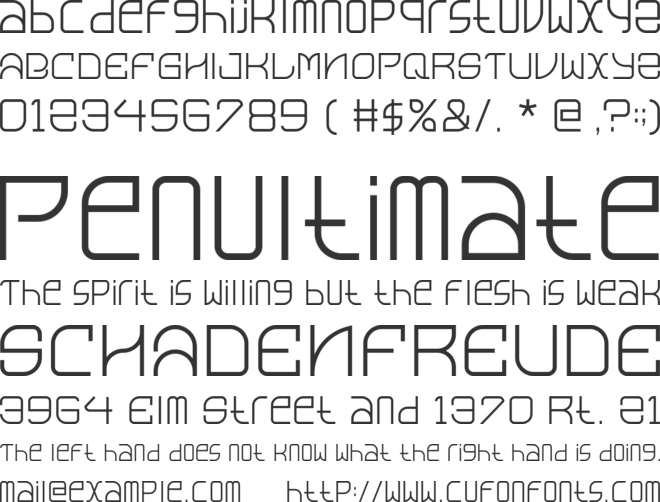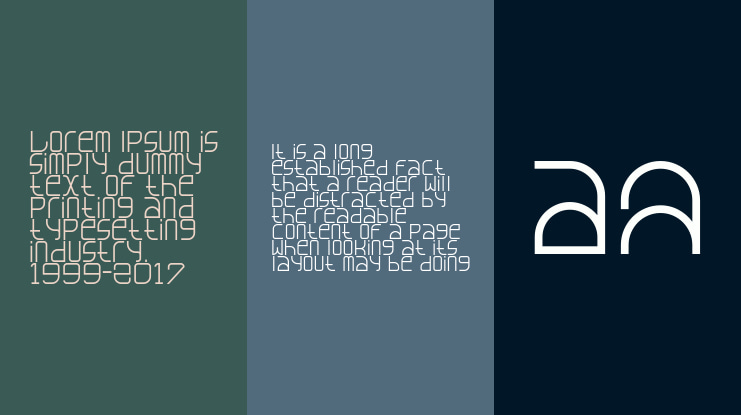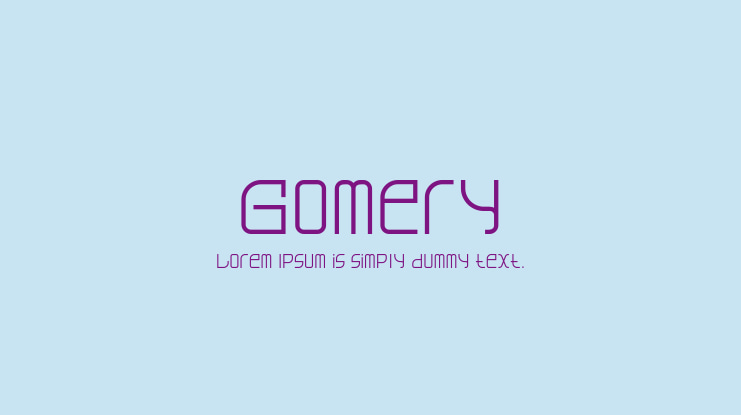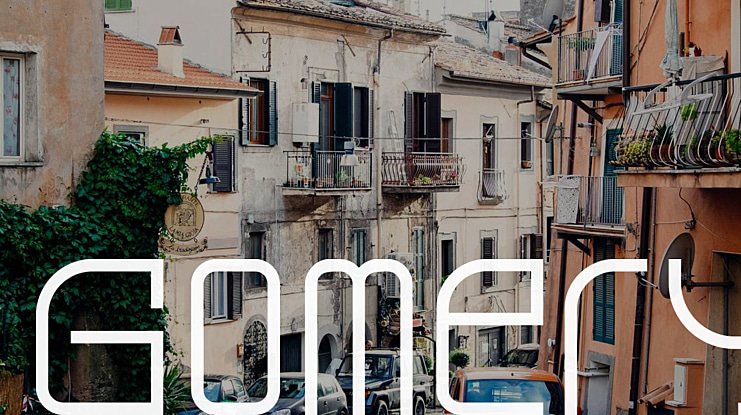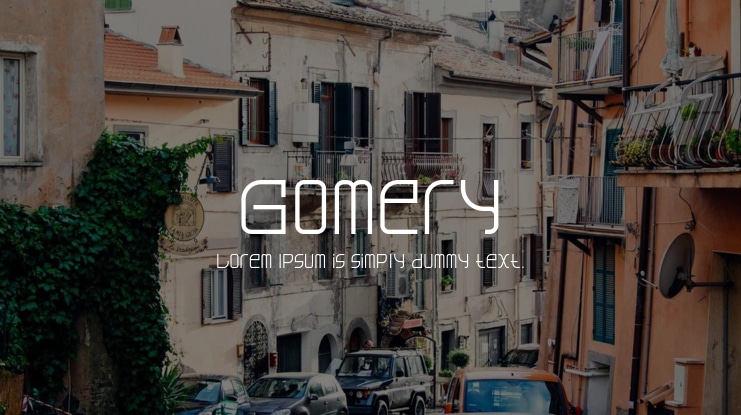
Gomery Font
Introducing Gomery, a cutting-edge display font designed to bring a sleek, modern, and futuristic edge to your projects. Perfect for tech-oriented branding, digital interfaces, and forward-thinking design, Gomery combines clean, geometric lines with striking curves, creating a bold presence that stands out in any layout.